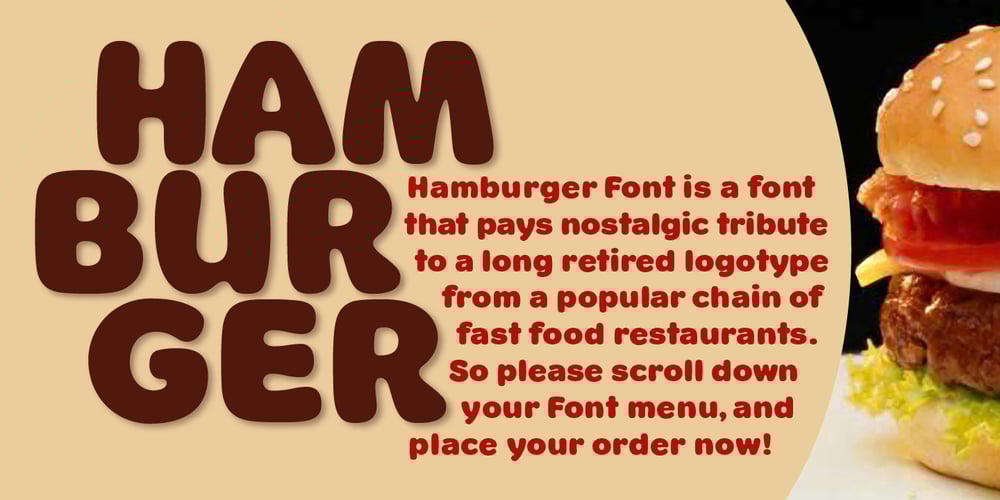
Hamburger Font BF
Hamburger Font BF Font Family was designed by John Bomparte and published by Bomparte’s Fonts. Hamburger Font BF contains 1 styles and family package options. Hamburger Font BF is an endearing tribute to the lettering style of a logo, long retired, from a certain chain of fast food restaurants. It joins that fraternity of heavy, fat, round, and pleasingly-plump faces such as Cooper Black and Frankfurter; and it serves as a delightful alternative to such. It’s suitable for a wide variety of uses from children’s media projects, to headlines where a cool, informal appearance is desired.